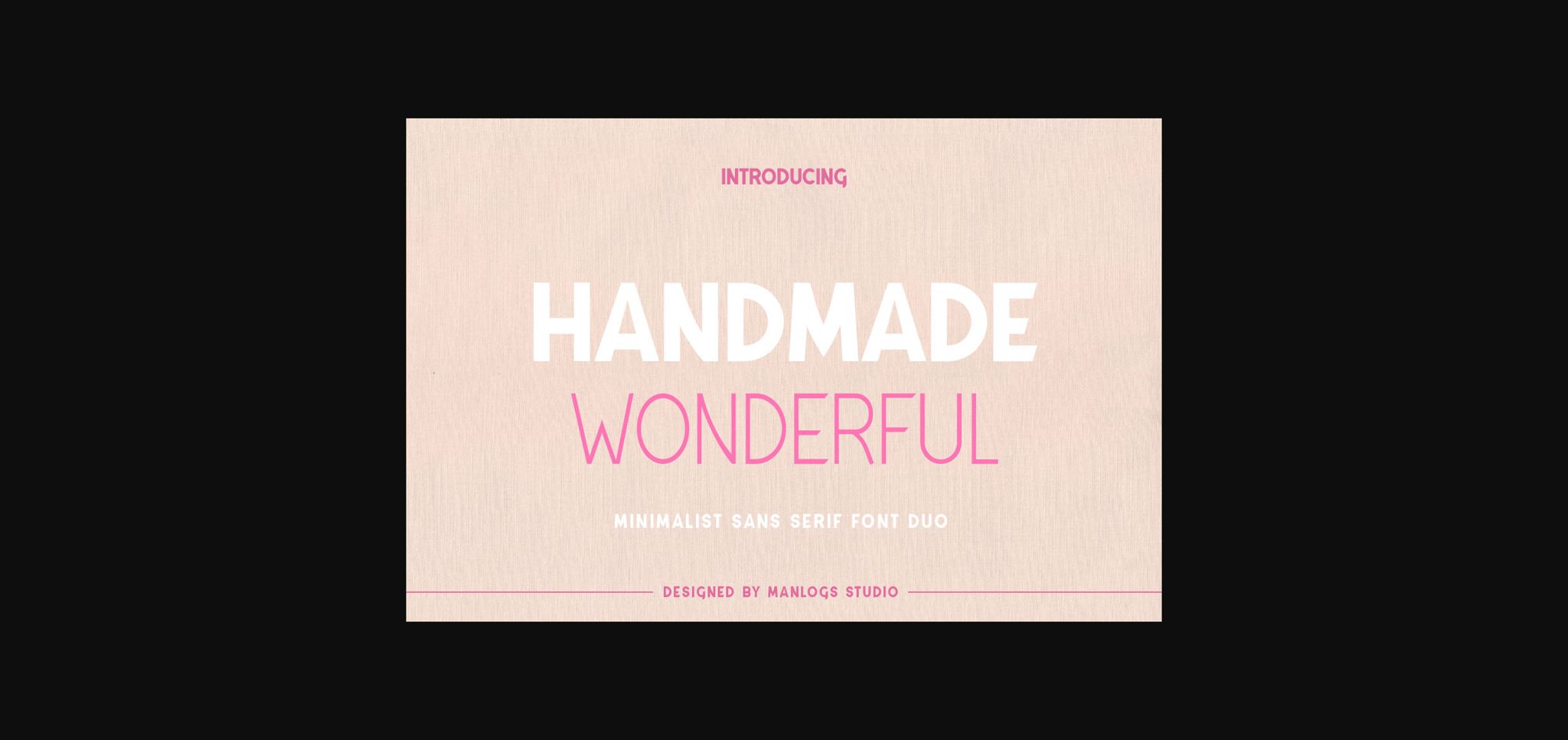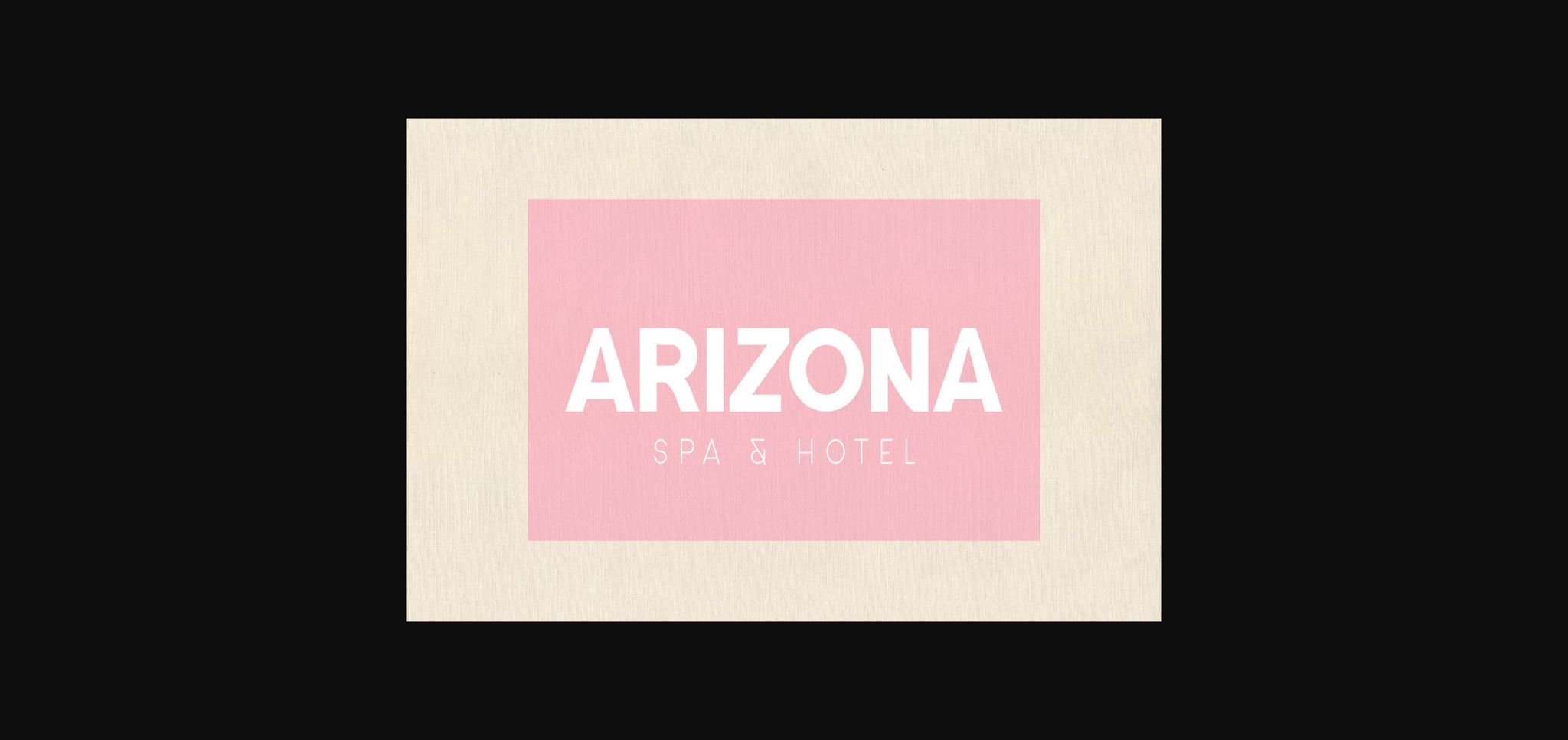
About Handmade Wonderful Duo Font
Handmade Wonderful Duo is a minimalist dan versatile duo sans serif font (thick and thin) perfect use for craft designs, fashion, quotes, label gifts, t-shirt design, magazines, poster design, packaging, branding, and more. This font will be an amazing choice.